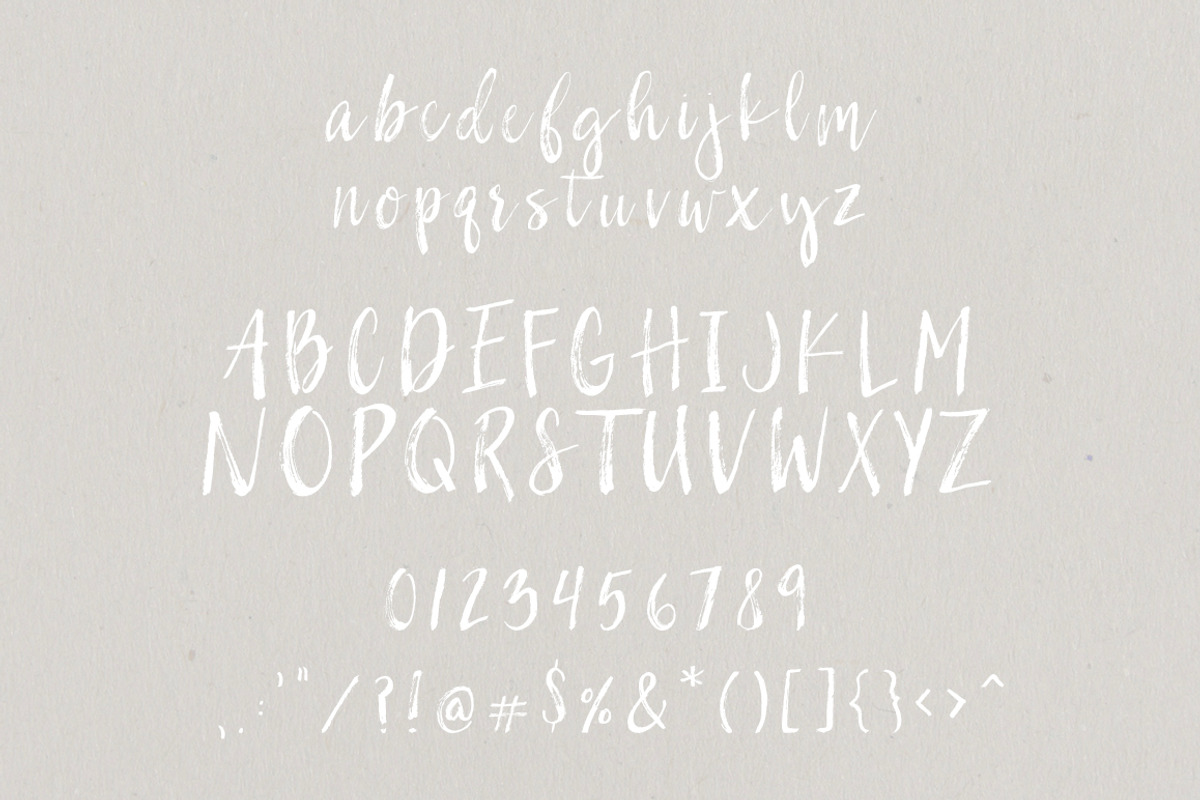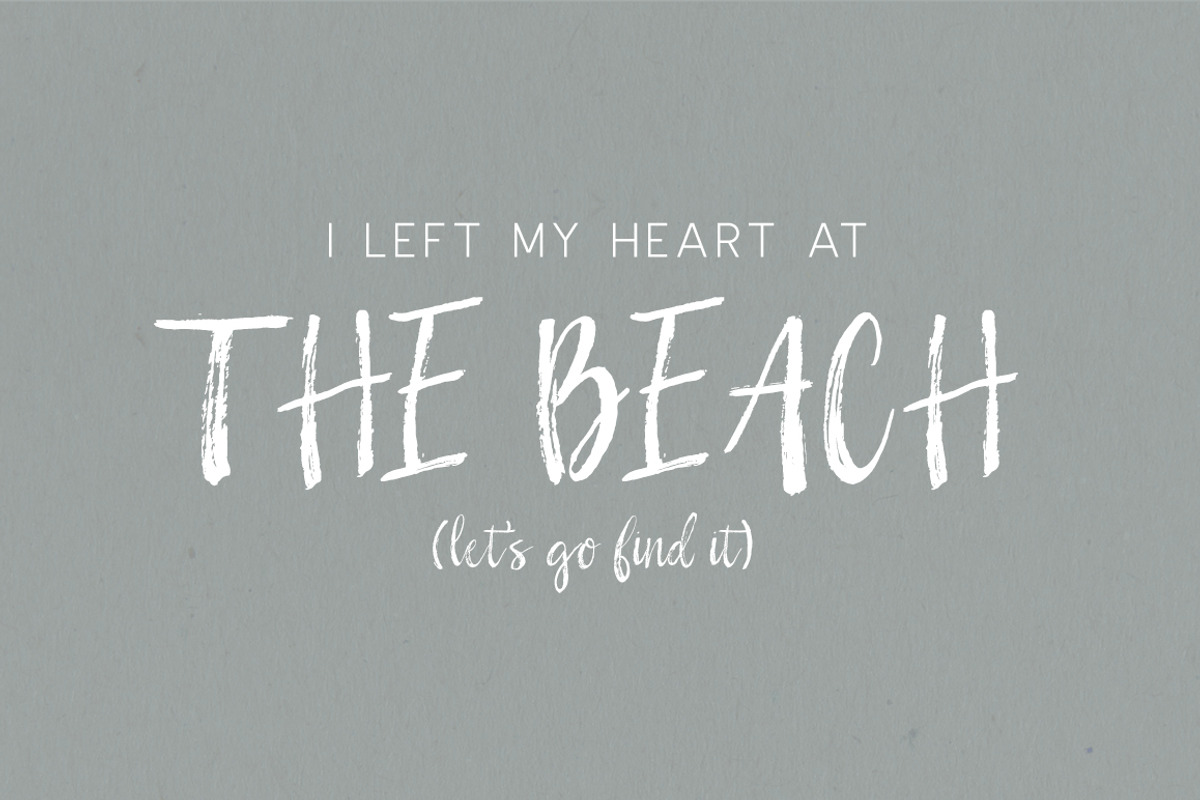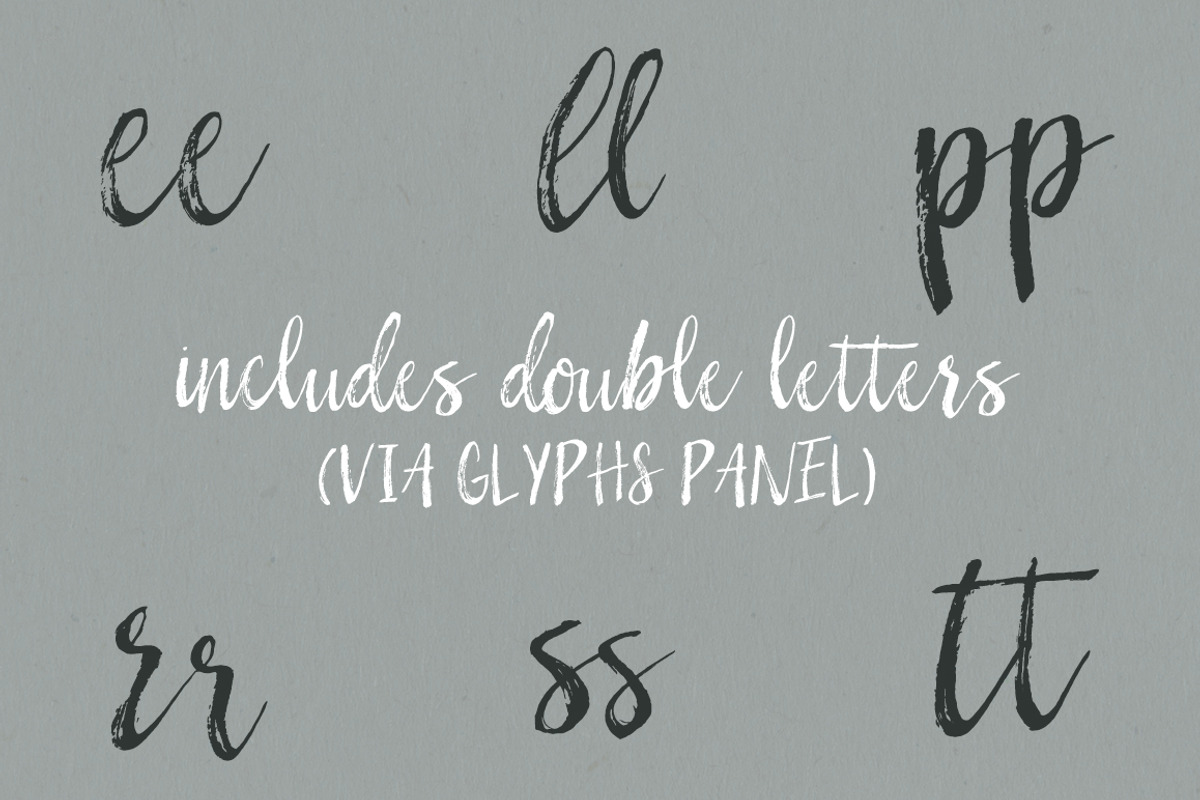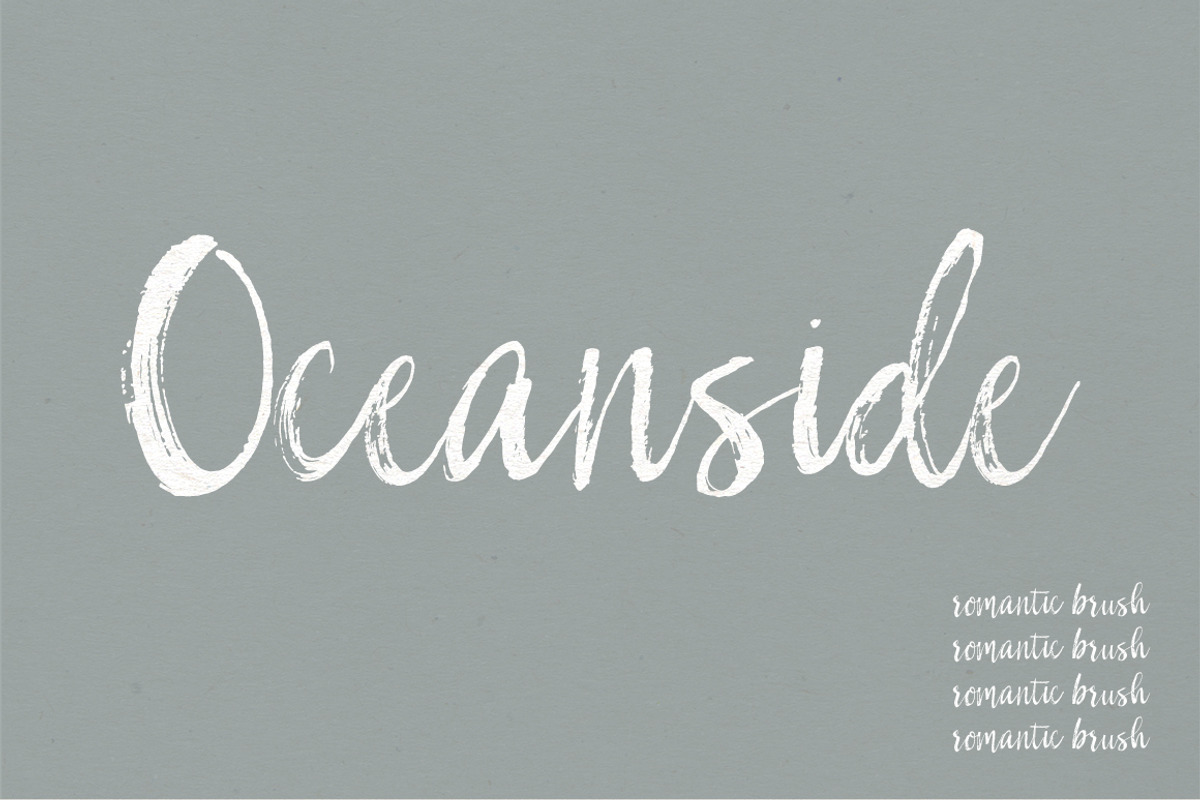
Oceanside | A Romantic Font
Oceanside | A Romantic Font by Jen Wagner Co is a font selected for branding, posters, packaging, typography.
- Includes Uppercase & Lowercase Letters Numbers & Punctuation Double Letter Alternates -Non-English Characters coming soon!
Why Oceanside | A Romantic Font is worth a look
Oceanside | A Romantic Font by Jen Wagner Co fits naturally into Branding, posters, packaging, typography.